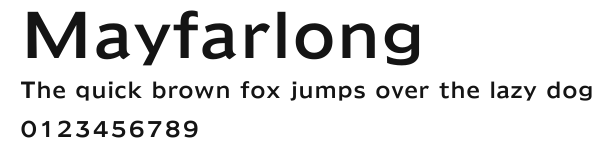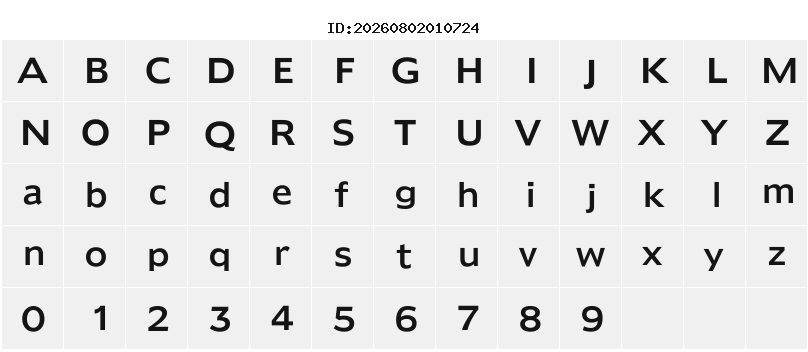
Mayfarlong.ttf is a modern, elegant sans-serif font designed for ultimate readability and visual harmony. Perfect for branding, headlines, web design, and print materials.